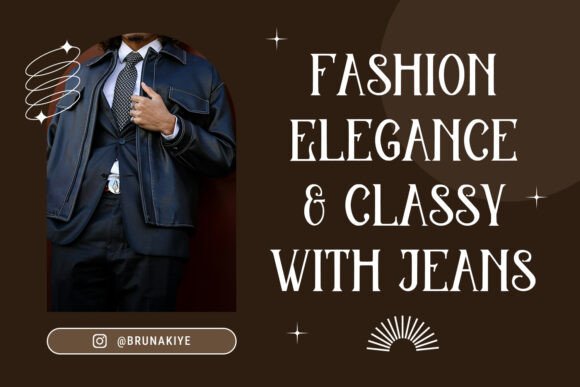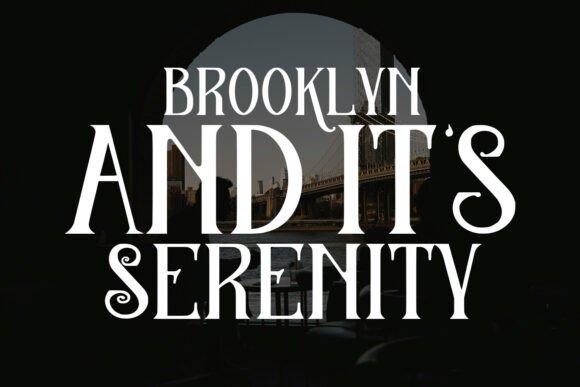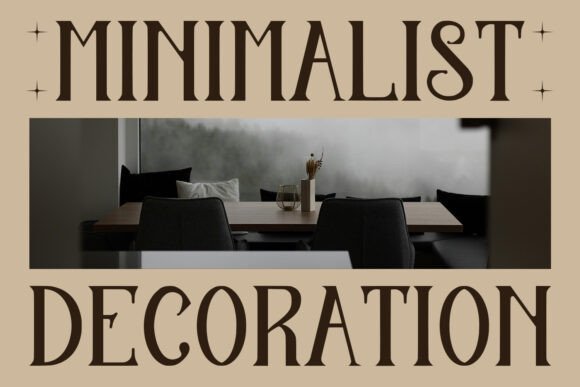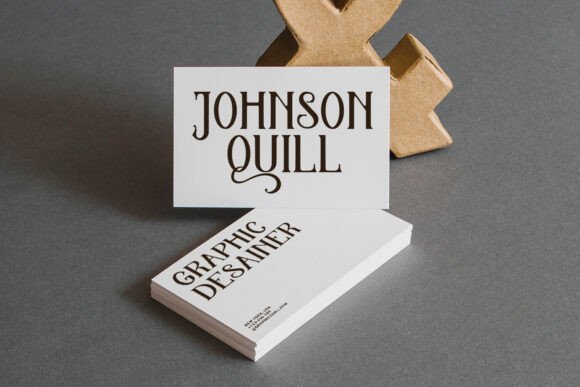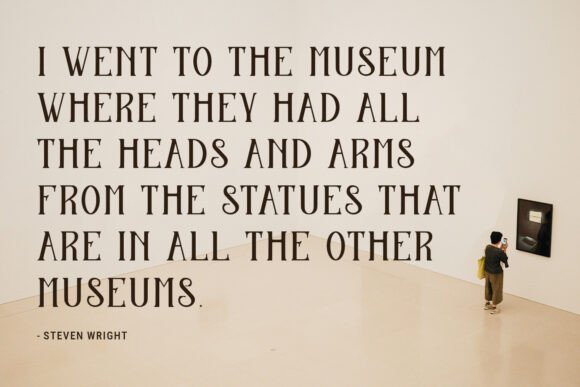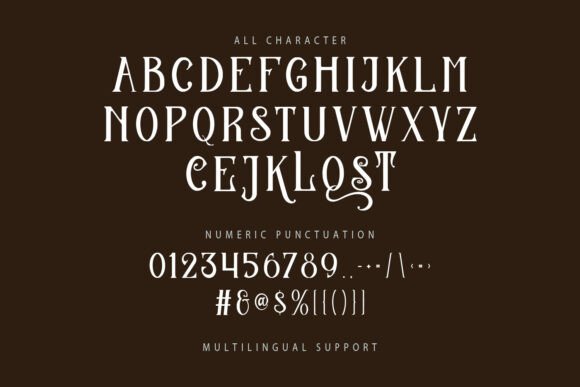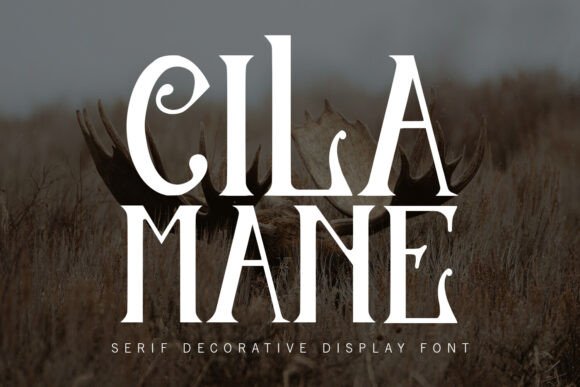
Cilamane Font: Elevate Your Designs with Elegance and Boldness
Are you on the hunt for a font that exudes elegance, sophistication, and versatility? Look no further than Cilamane, a stunning serif font that’s taking the design world by storm. With its unique blend of boldness and refinement, Cilamane is the perfect choice for designers and crafters looking to create breathtaking wedding invitations, stationary art, social media posts, and more.
The Characteristics of Cilamane Font
Cilamane is a masterfully crafted serif font that boasts an impressive range of characteristics, making it incredibly versatile and adaptable. Its elegant and bold design ensures that it can be used in a variety of contexts, from formal events to digital marketing materials.
- Elegant and Refined: Cilamane’s serif design gives it a sophisticated and luxurious feel, perfect for high-end branding, wedding invitations, and formal stationery.
- Bold and Eye-Catching: The font’s bold weight ensures that it grabs attention and makes a statement, ideal for social media posts, headlines, and titles.
- Versatile: Cilamane’s unique design allows it to be used in a wide range of applications, from digital to print, and from formal to informal.
Uses for Cilamane Font
Cilamane’s versatility is one of its most significant advantages. Here are just a few examples of how you can use this stunning font to elevate your designs:
- Wedding Invitations: Create beautiful, elegant, and sophisticated wedding invitations that set the tone for the big day.
- Stationary Art: Use Cilamane to design gorgeous stationery, including notecards, journals, and planners.
- Social Media Posts: Make your social media posts stand out with Cilamane’s bold and eye-catching design.
- Branding and Packaging: Use Cilamane to create a luxurious and high-end brand identity that exudes sophistication and elegance.
Why Choose Cilamane Font?
With so many fonts available, why choose Cilamane? Here are just a few reasons why designers and crafters are falling in love with this stunning serif font:
- Unique Design: Cilamane’s unique blend of elegance and boldness sets it apart from other fonts on the market.
- High-Quality: Cilamane is a high-quality font that’s been carefully crafted to ensure that it looks amazing in any context.
- Easy to Read: Despite its bold design, Cilamane is incredibly easy to read, making it perfect for body text and captions.
- Customizable: Cilamane can be easily customized to fit your brand’s unique style and aesthetic.
Tips for Using Cilamane Font
To get the most out of Cilamane, here are a few tips to keep in mind:
- Pair with a Sans-Serif Font: Pair Cilamane with a sans-serif font to create a beautiful contrast between elegant and modern.
- Experiment with Colors: Cilamane looks amazing in a range of colors, from classic black and white to bold and bright hues.
- Use it Boldly: Don’t be afraid to use Cilamane in bold and eye-catching ways, such as in headlines and titles.
Cilamane is a truly exceptional font that’s sure to elevate your designs and take them to the next level. With its unique blend of elegance and boldness, versatility, and high-quality design, Cilamane is the perfect choice for designers and crafters looking to create stunning wedding invitations, stationary art, social media posts, and more. So why wait? Fall in love with Cilamane today and discover a world of limitless design possibilities!